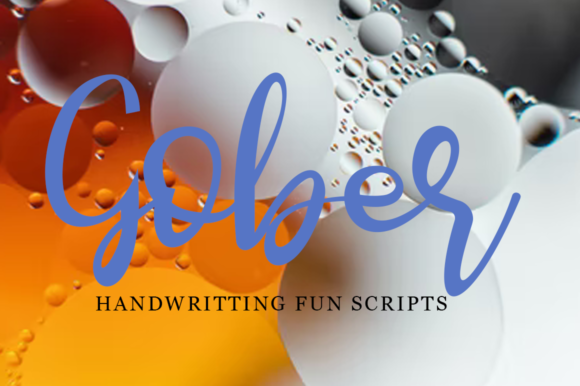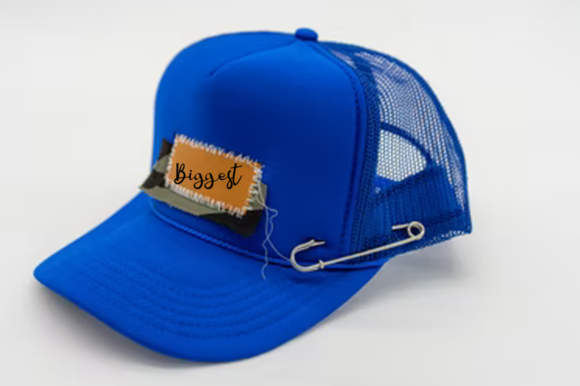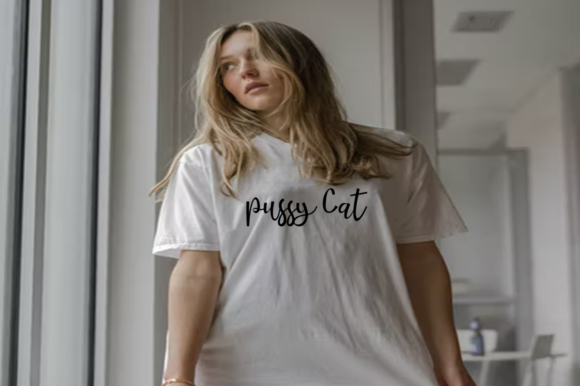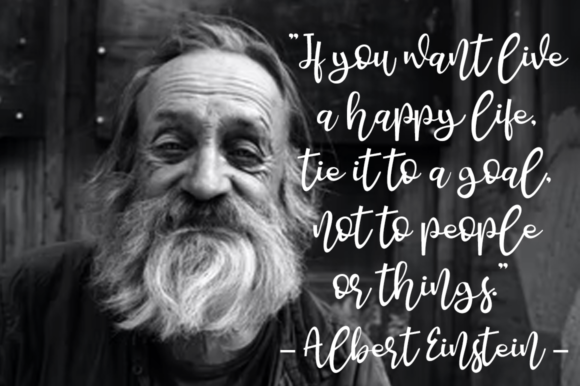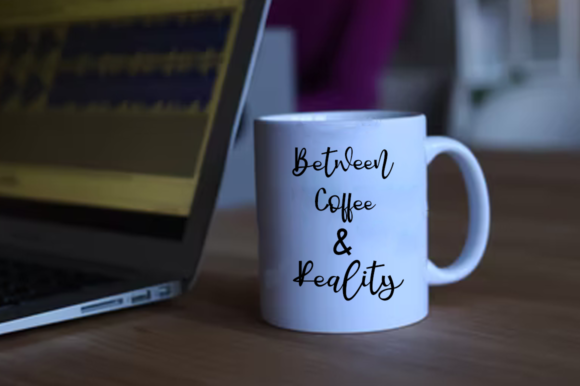
About Gober Font
GoberĀ is a stylish and relaxed script font that emanates confidence and versatility. Its stylish alternates and ligatures make this font the perfect match for any project.